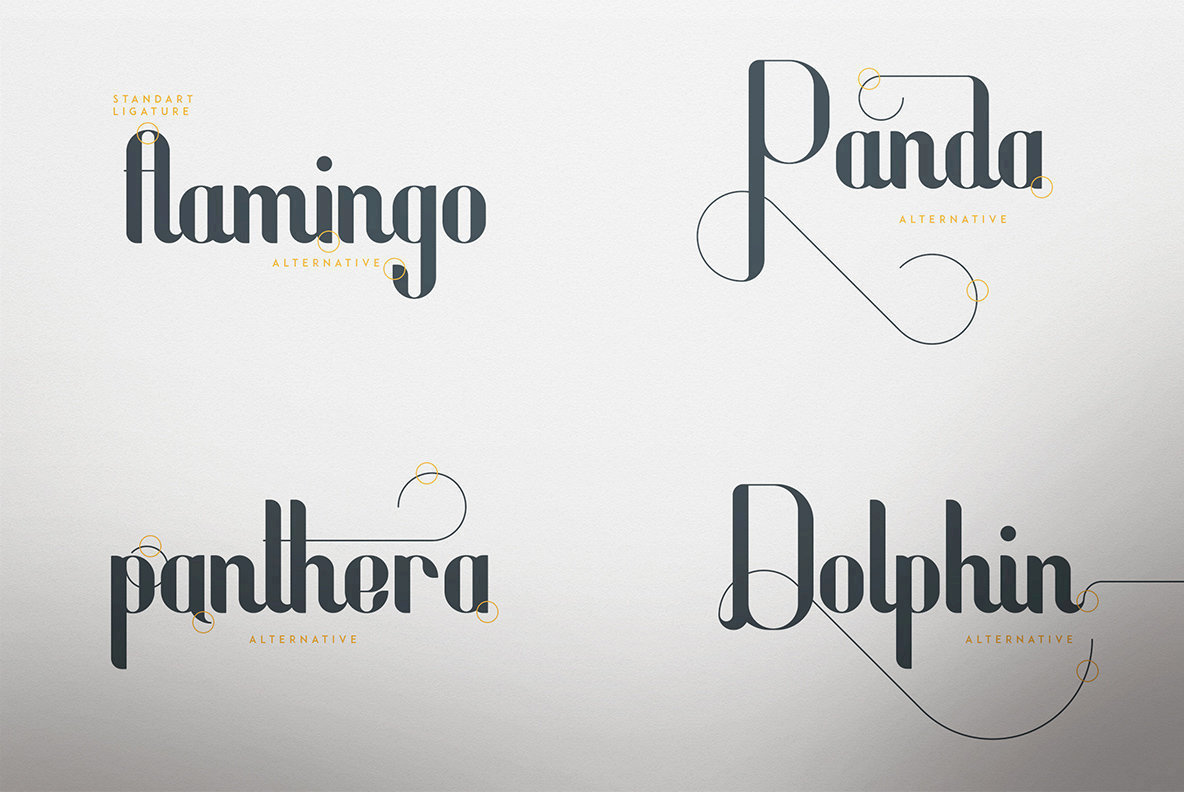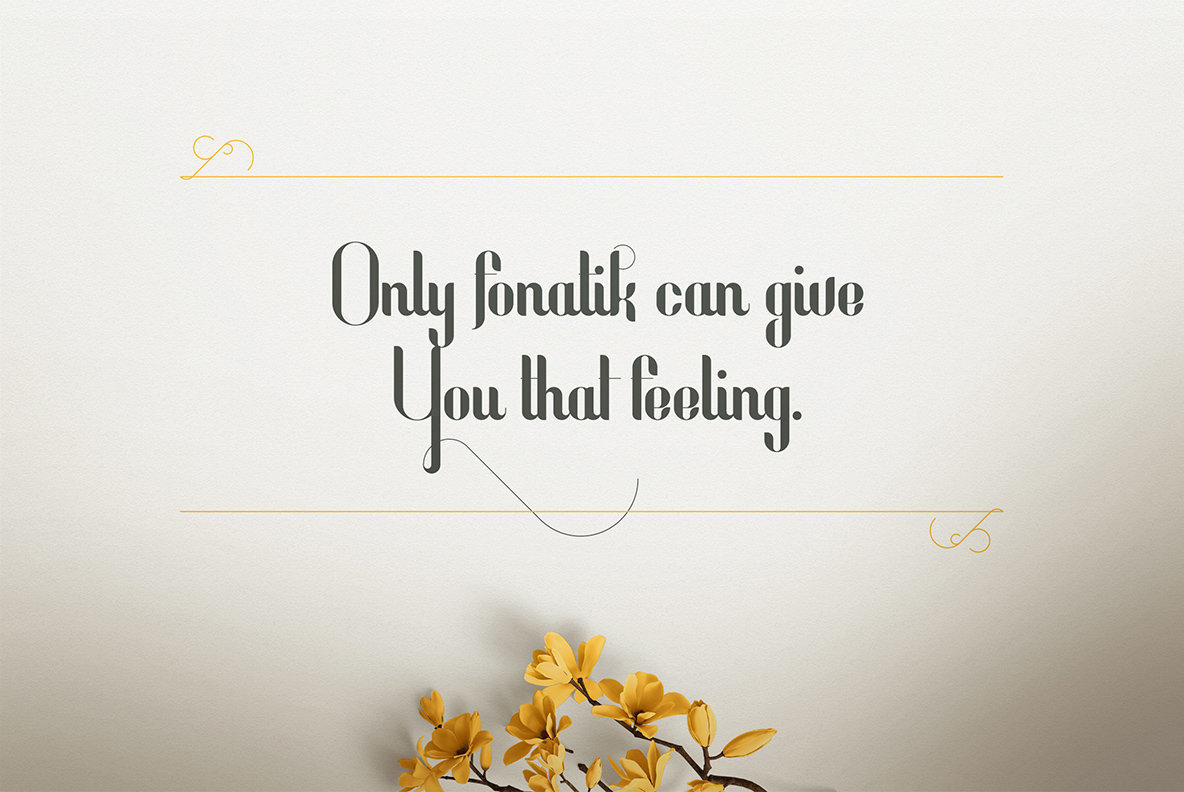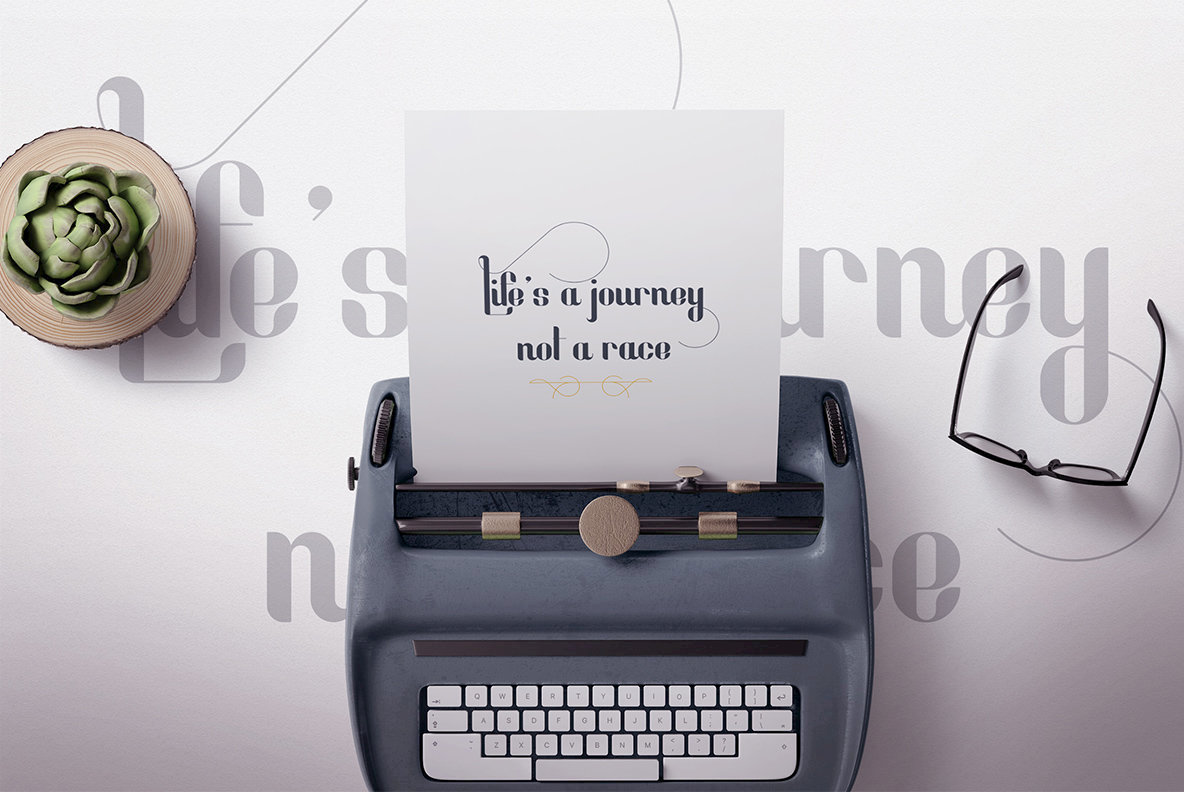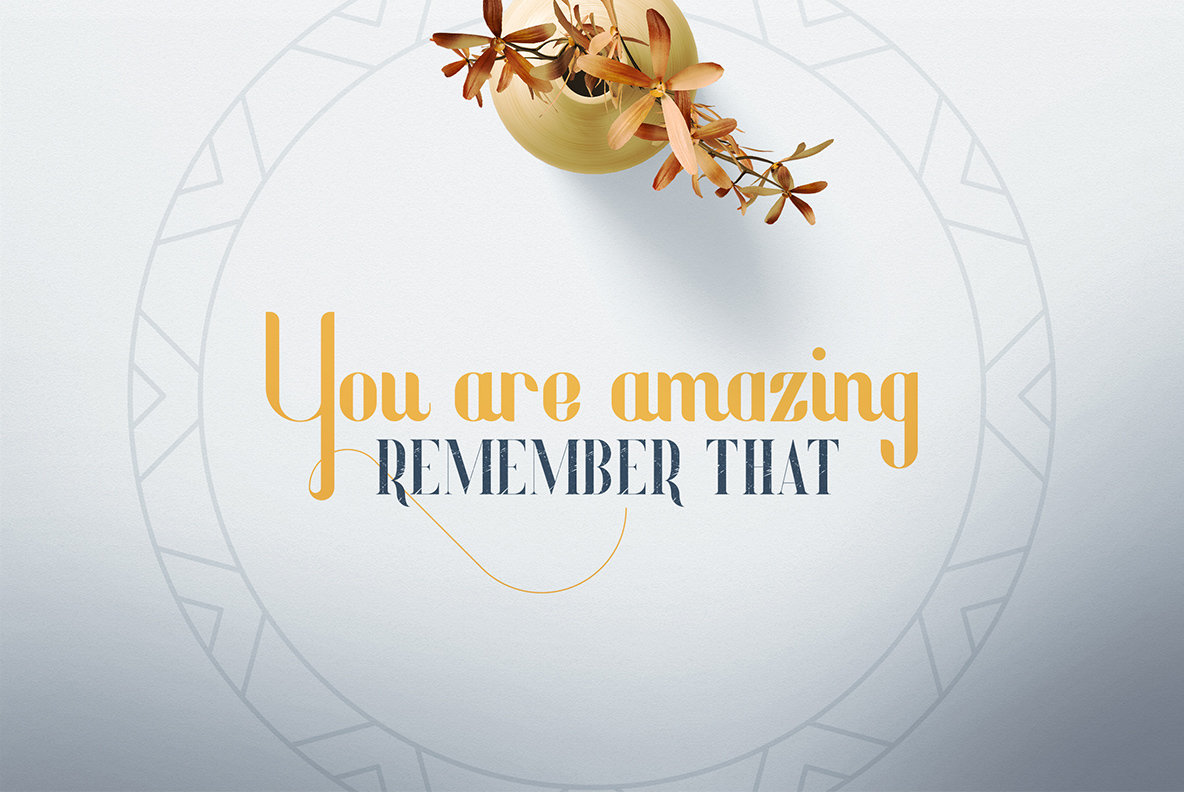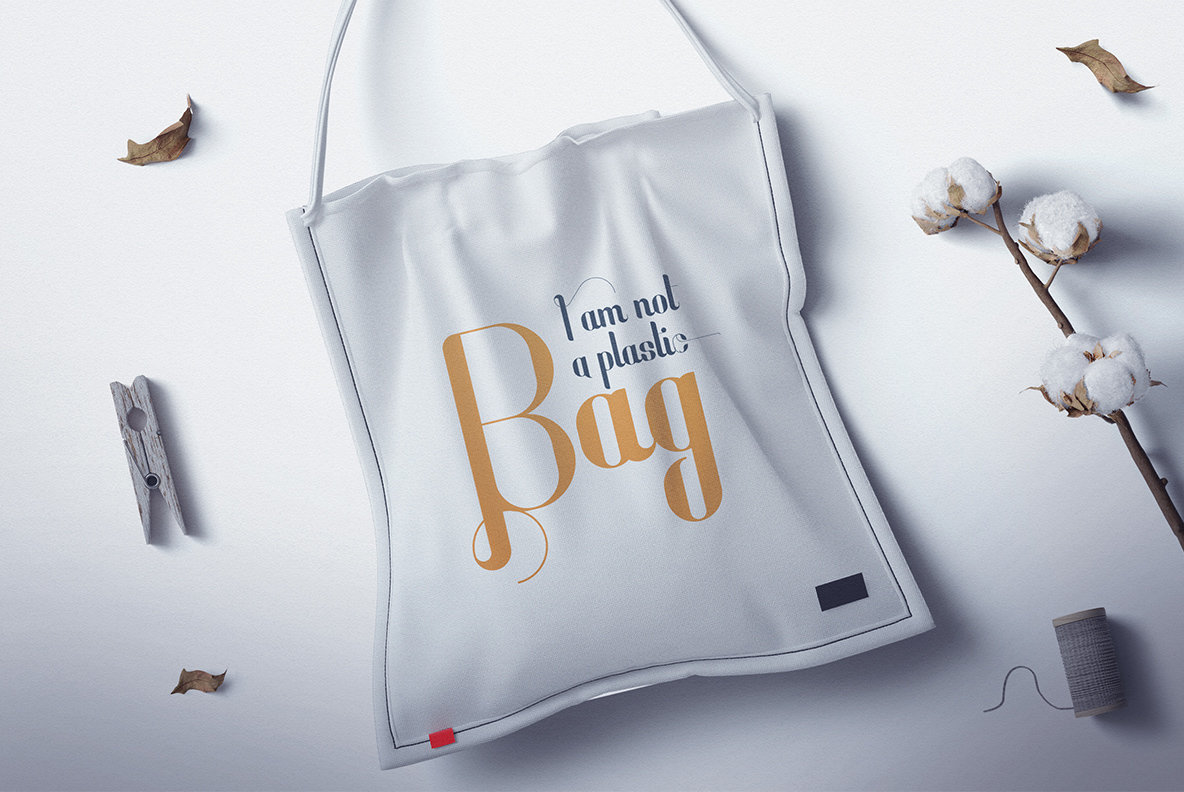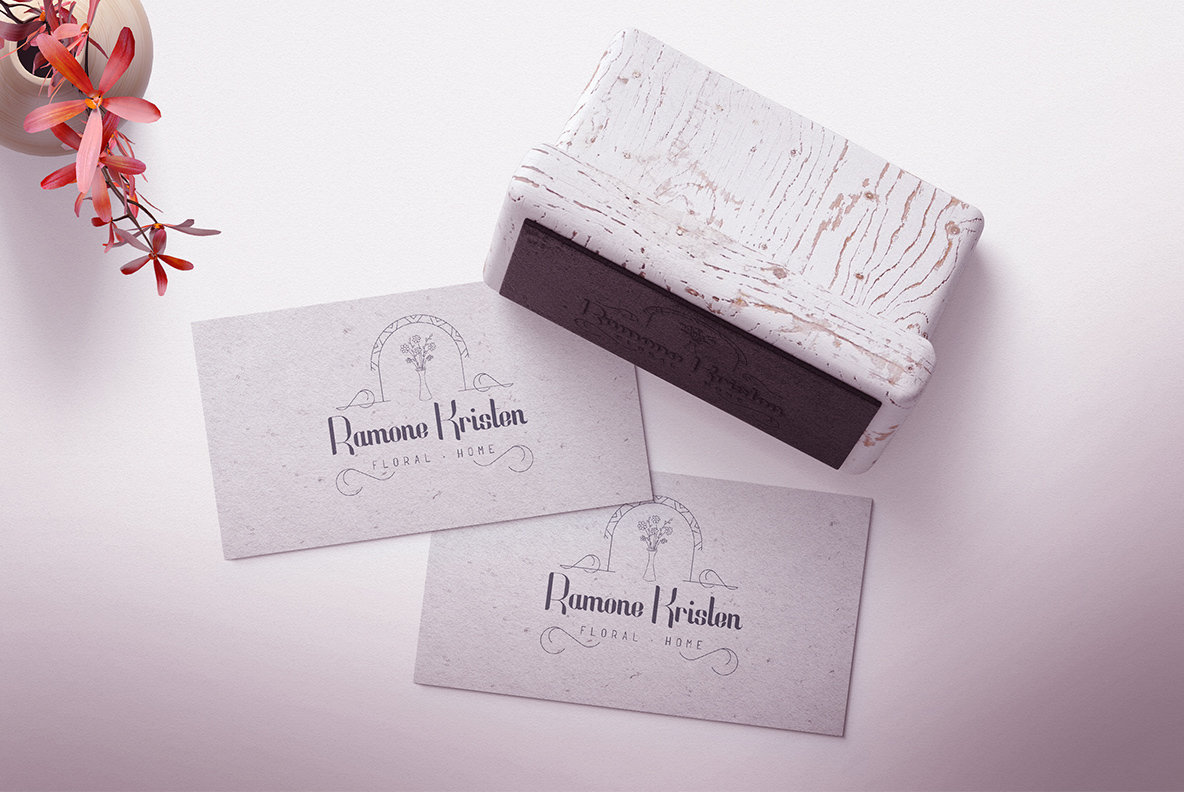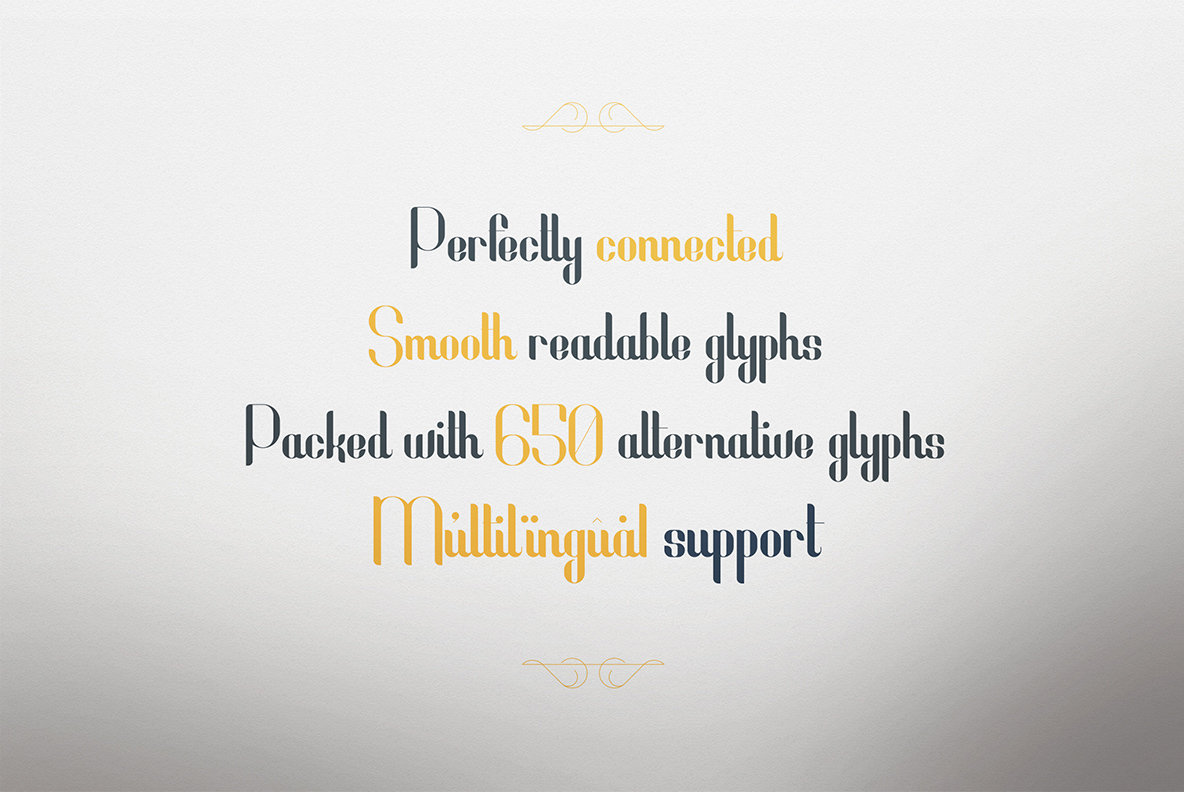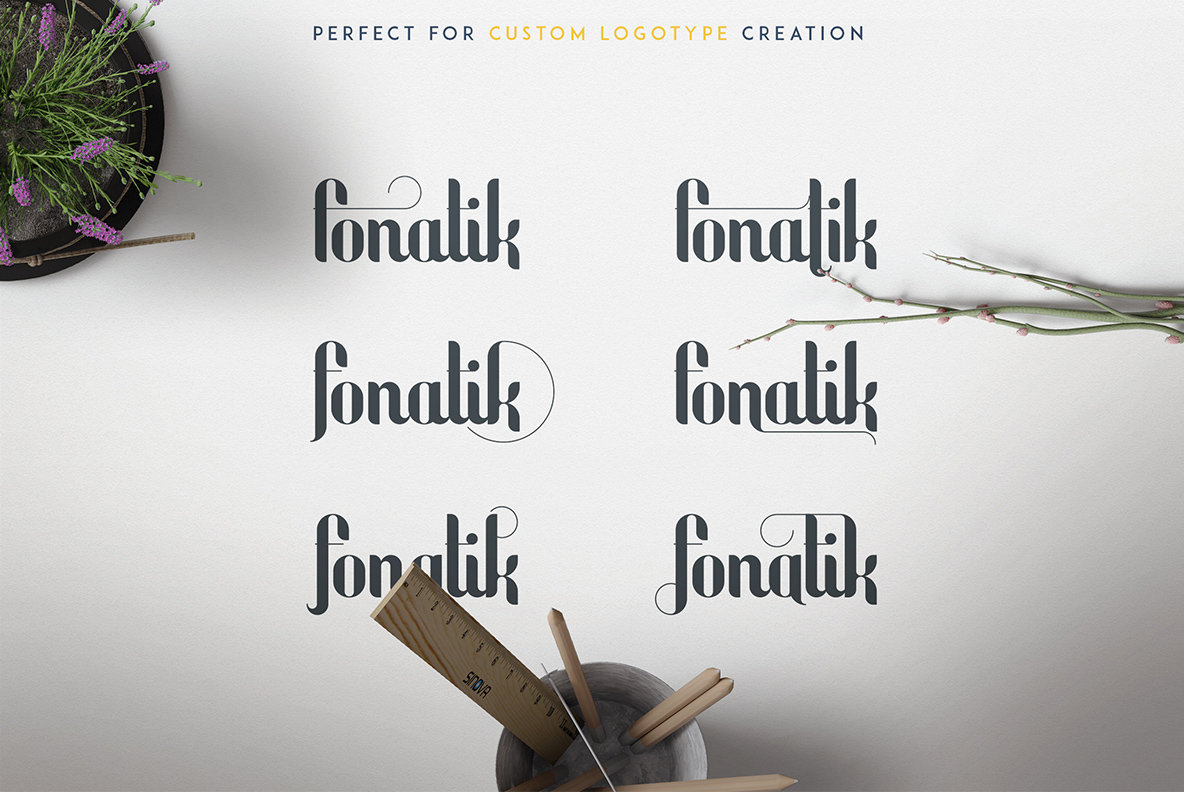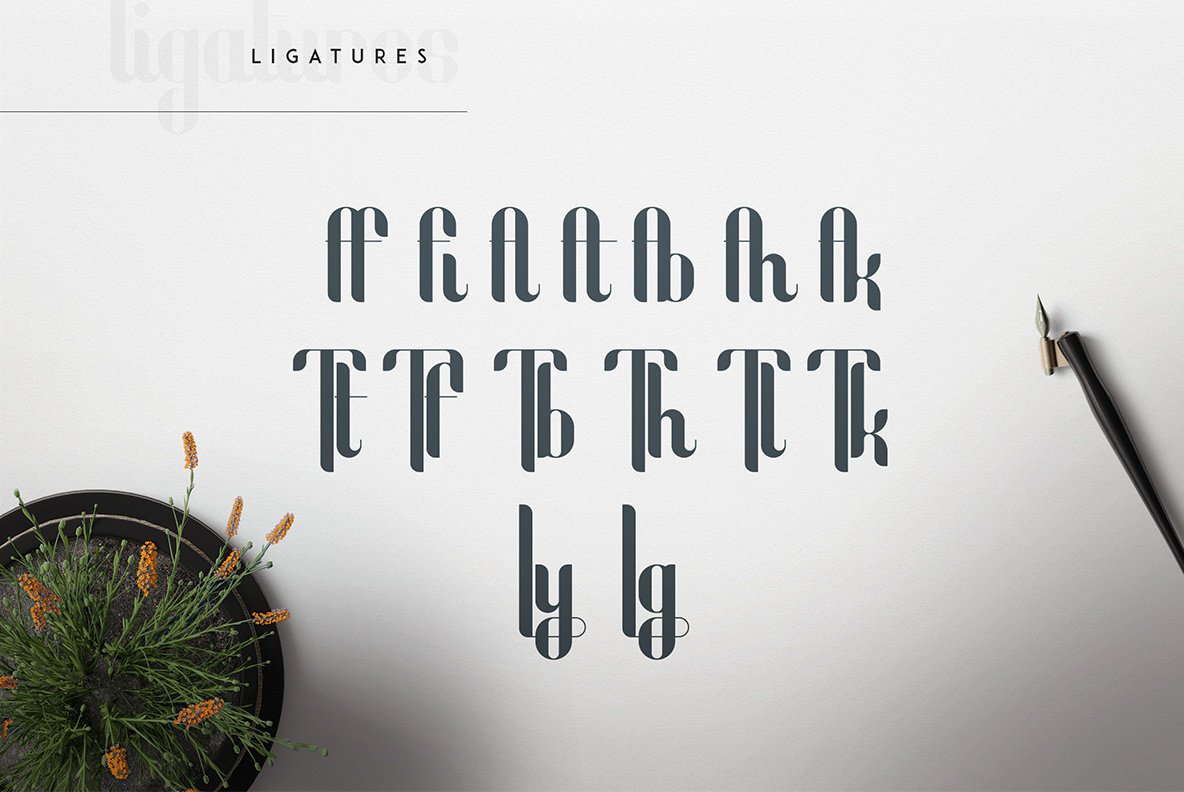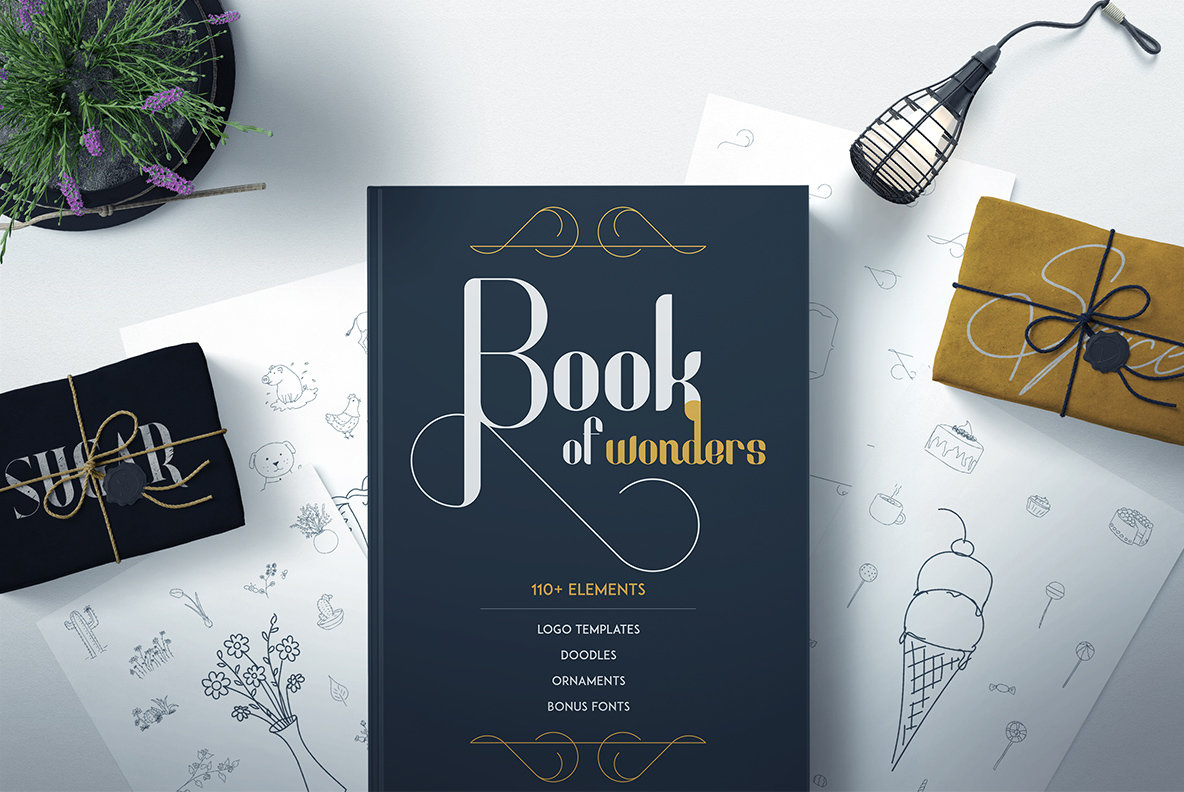
Fonatik Display Font and Extras
Fonatik thrives as an elegant and clean display font, boasting a remarkable collection of 650 stylistic alternative glyphs. Alongside 110+ vector elements and 10 premade logo templates, it includes three bonus font families and ensures multilingual support. This font navigates seamlessly between various sizes, making it ideal for diverse creative projects. Whether you're embarking on branding endeavors, designing homeware, or crafting magazine headers, Fonatik enhances your work. Its stylish essence elevates product packaging and overlays on background images with sophistication.Fonatik: Elegant Versatility with Stylistic Flourish